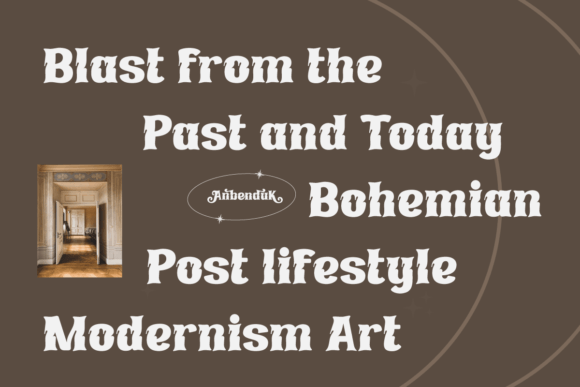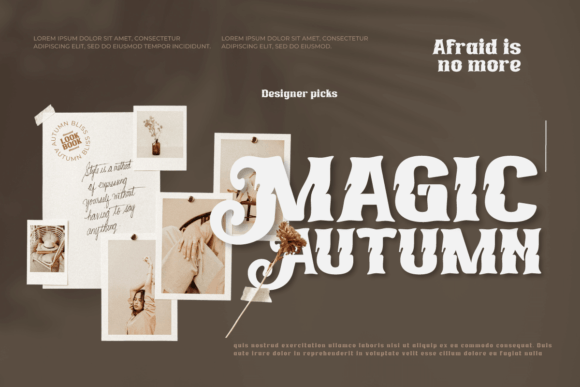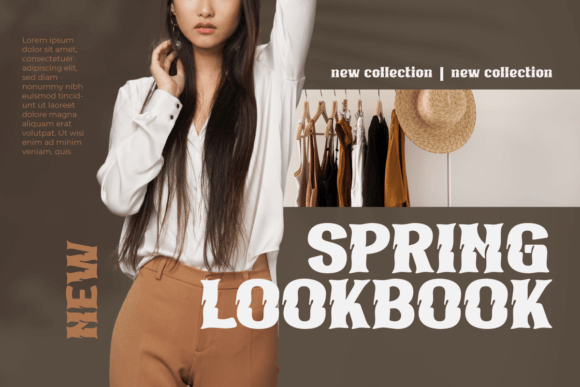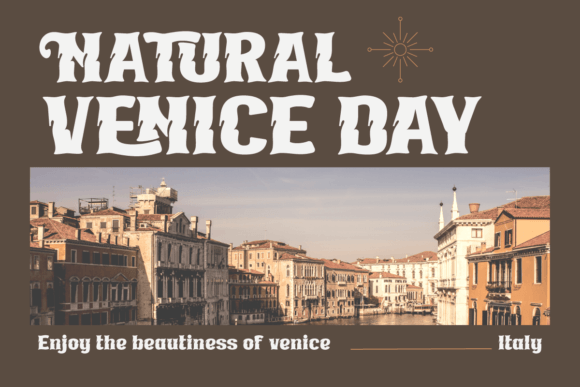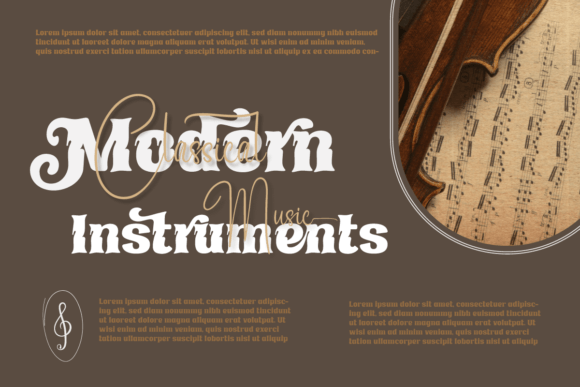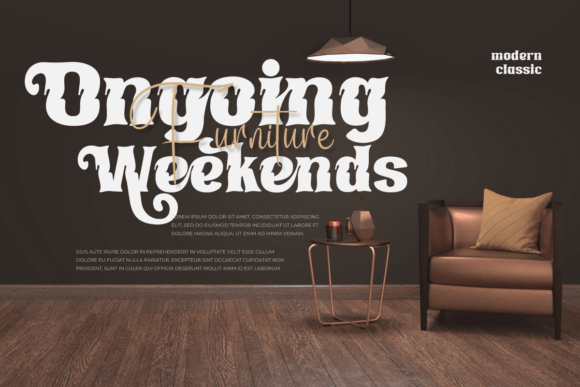
Introduction to Anbenduk Font
The Anbenduk typeface is ideal for projects that require an elegant classic modernist serif feel.
This fontโs distinct and attractive design will make your writing stand out and appear professional Anbenduk has wonderful features like ligatures and alternates that will provide a creative touch to your creations.
Key Features of Anbenduk Font